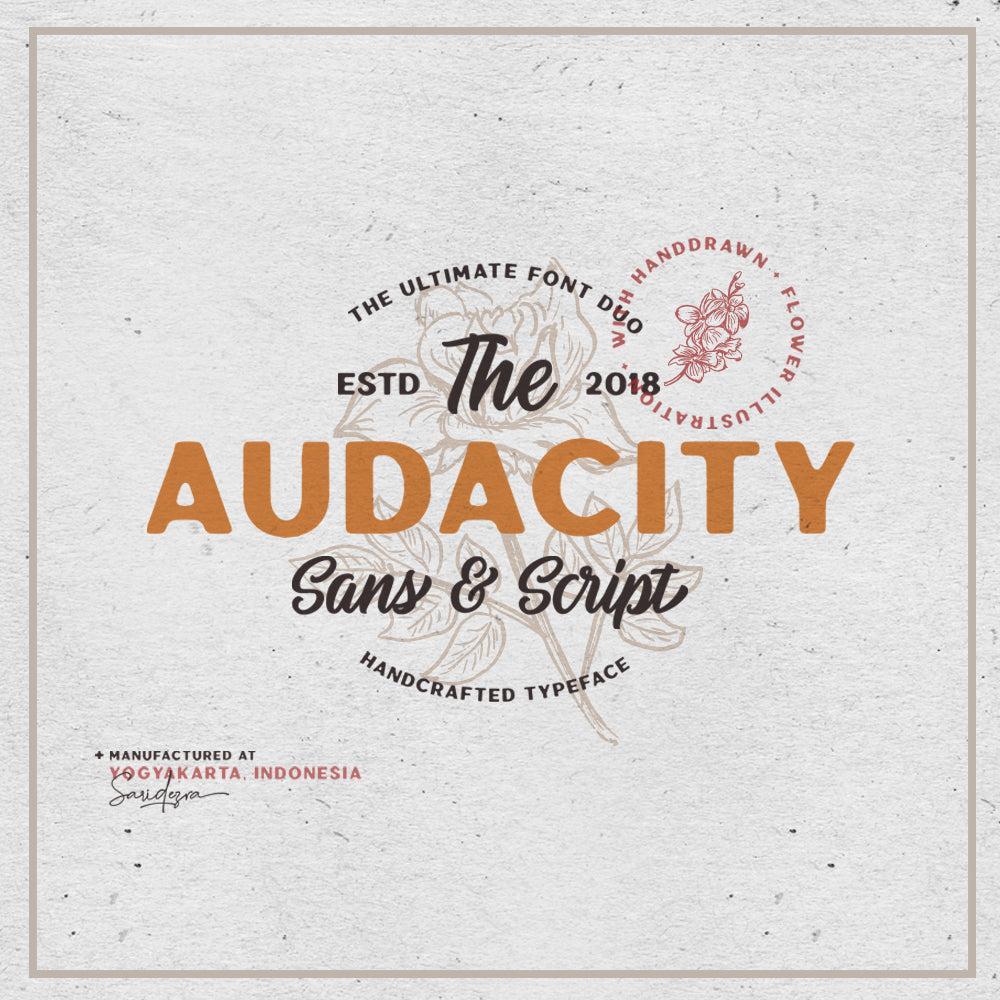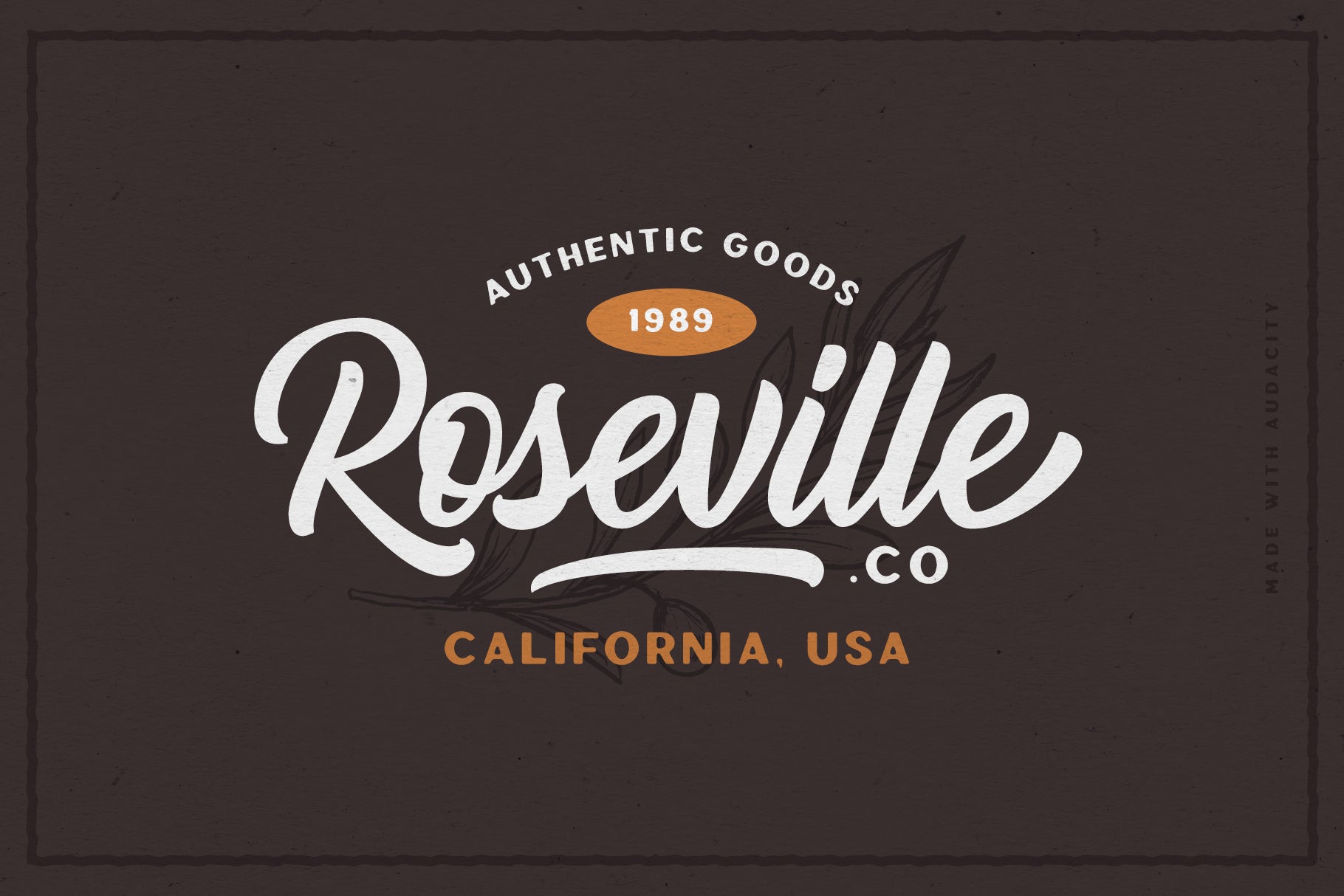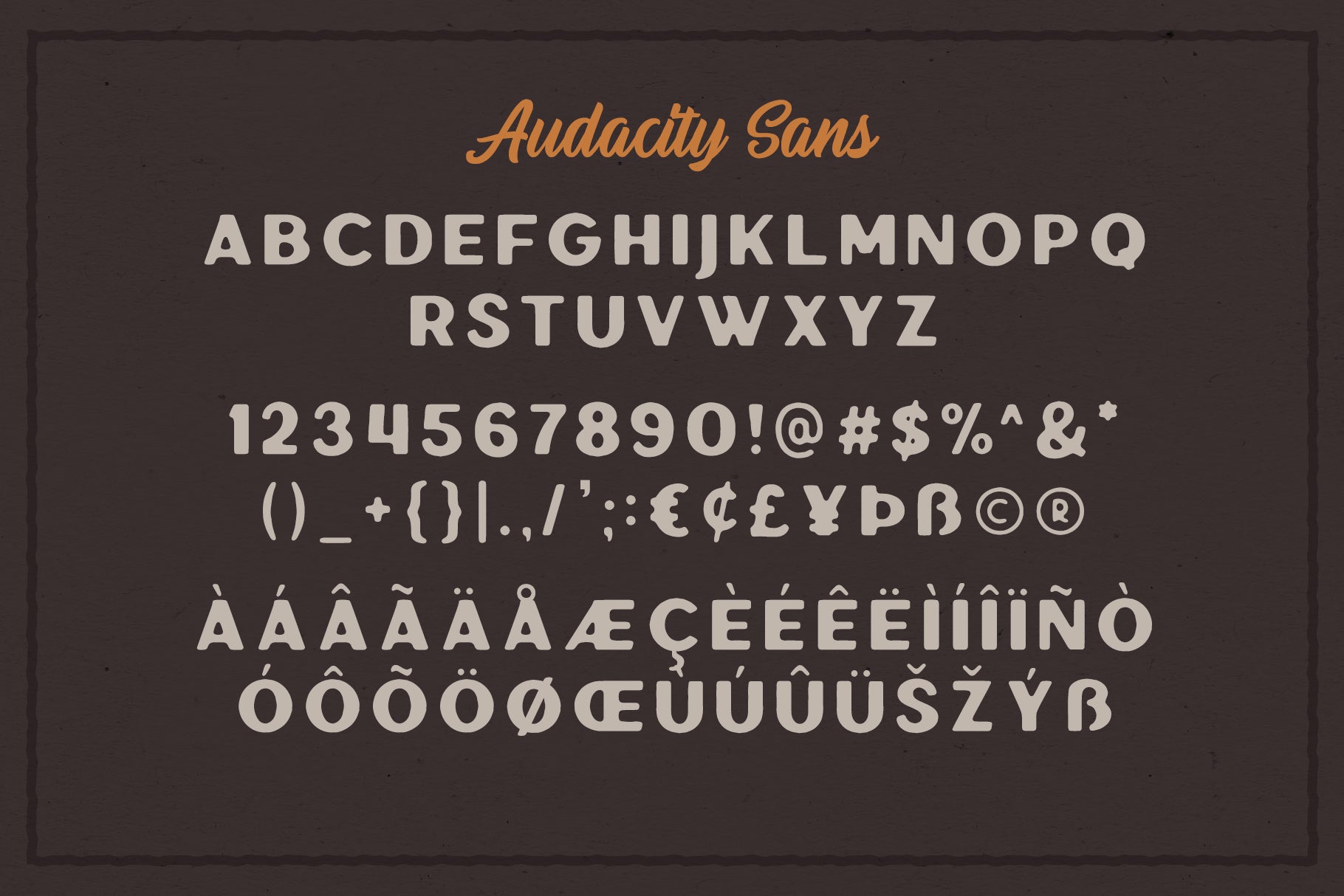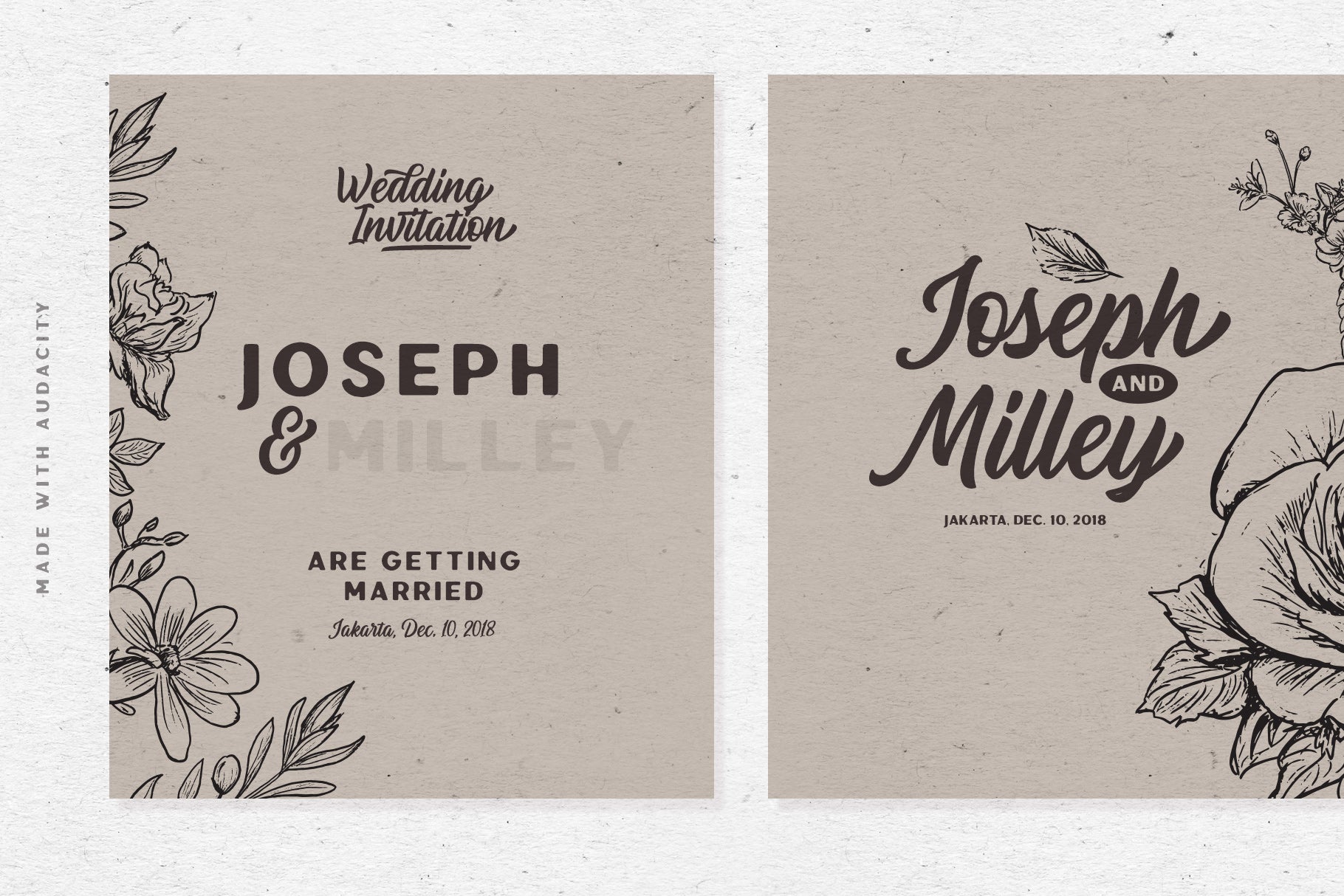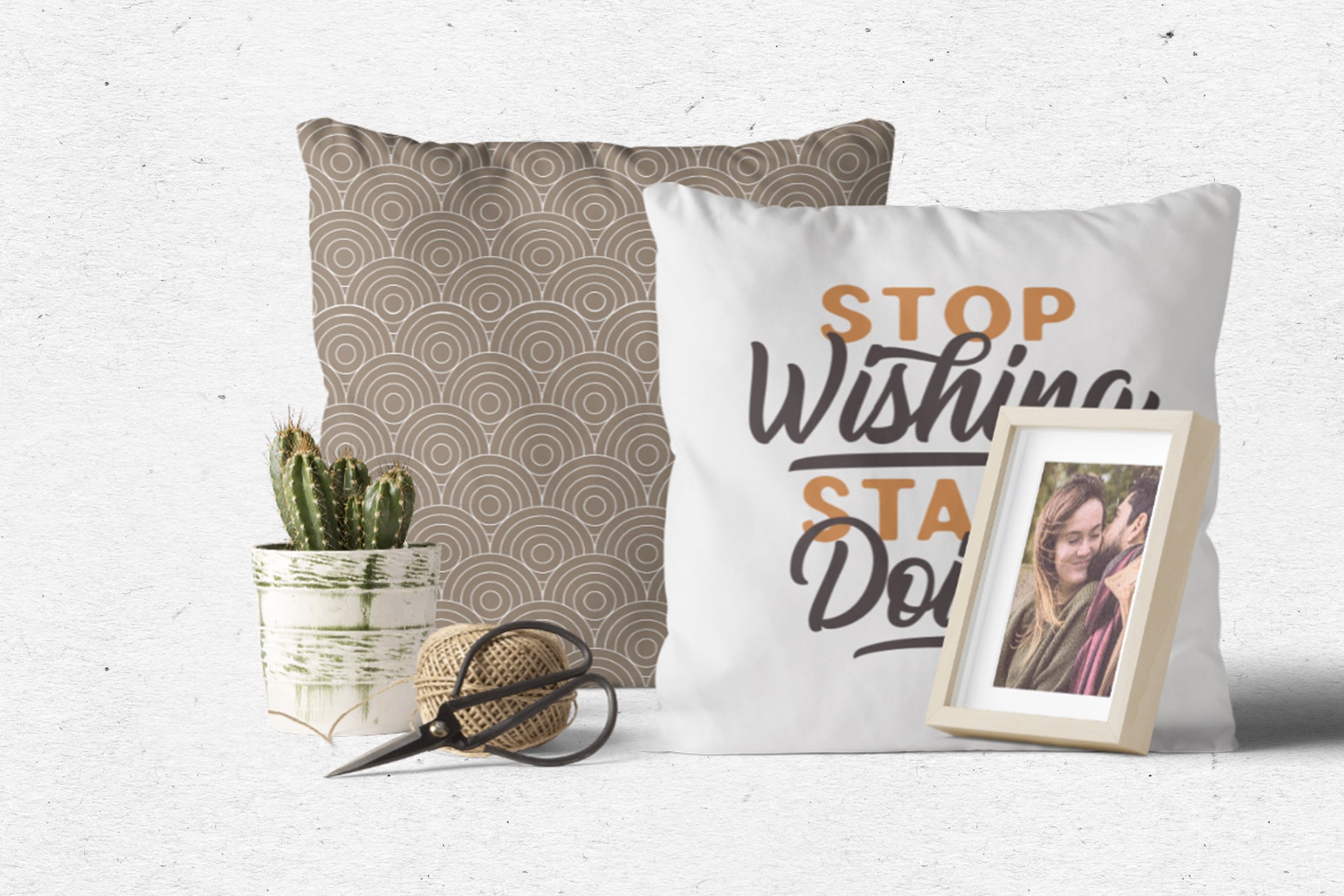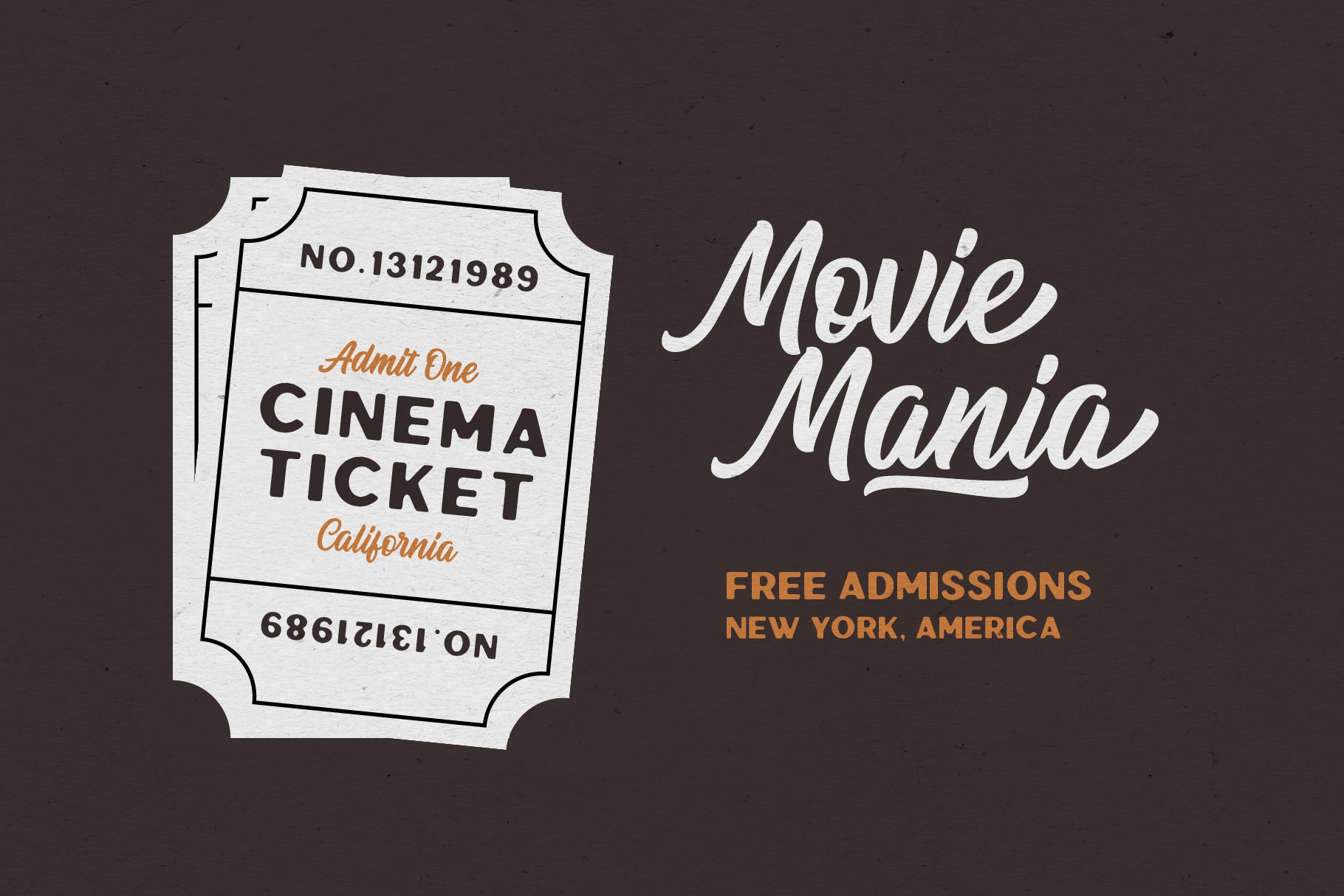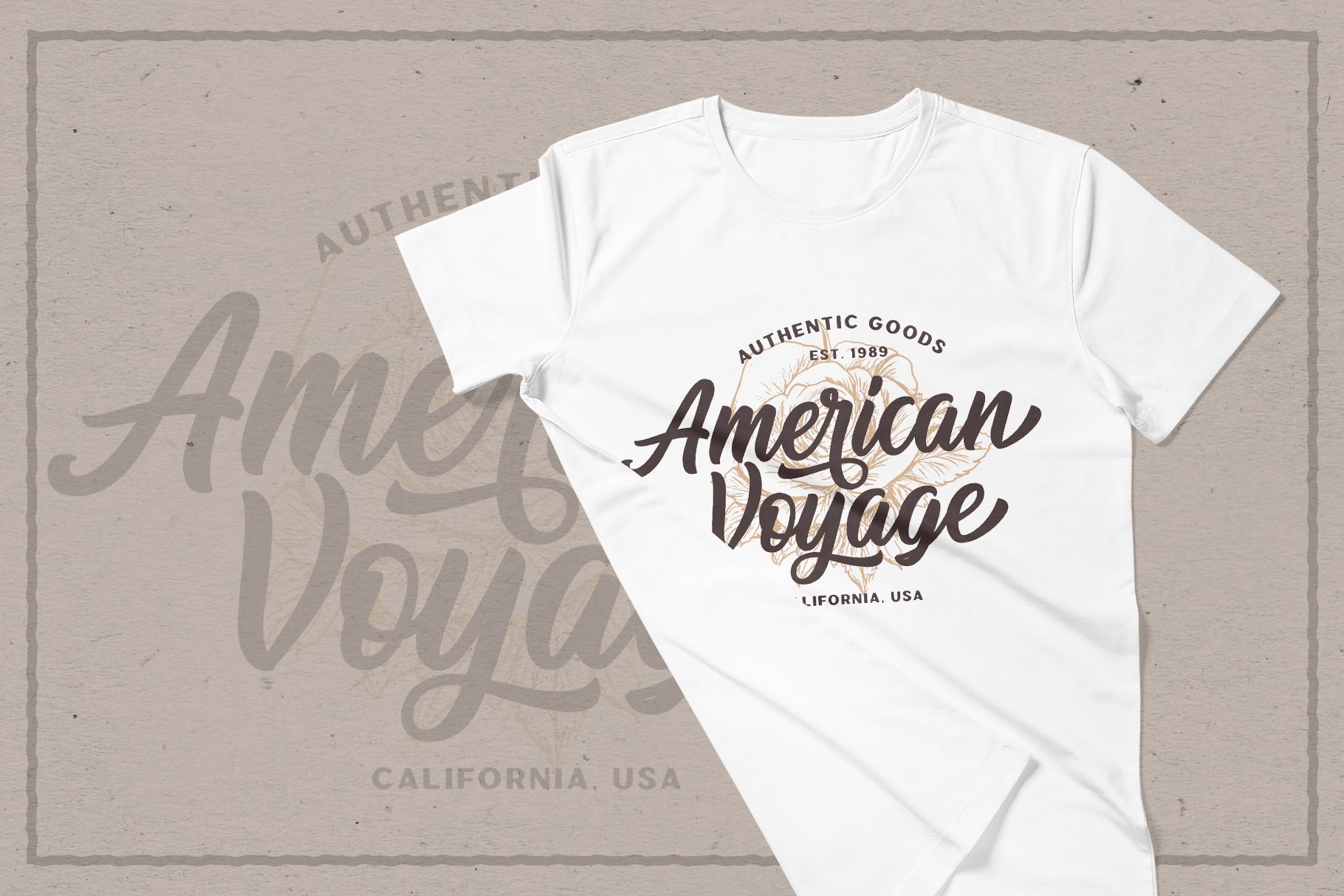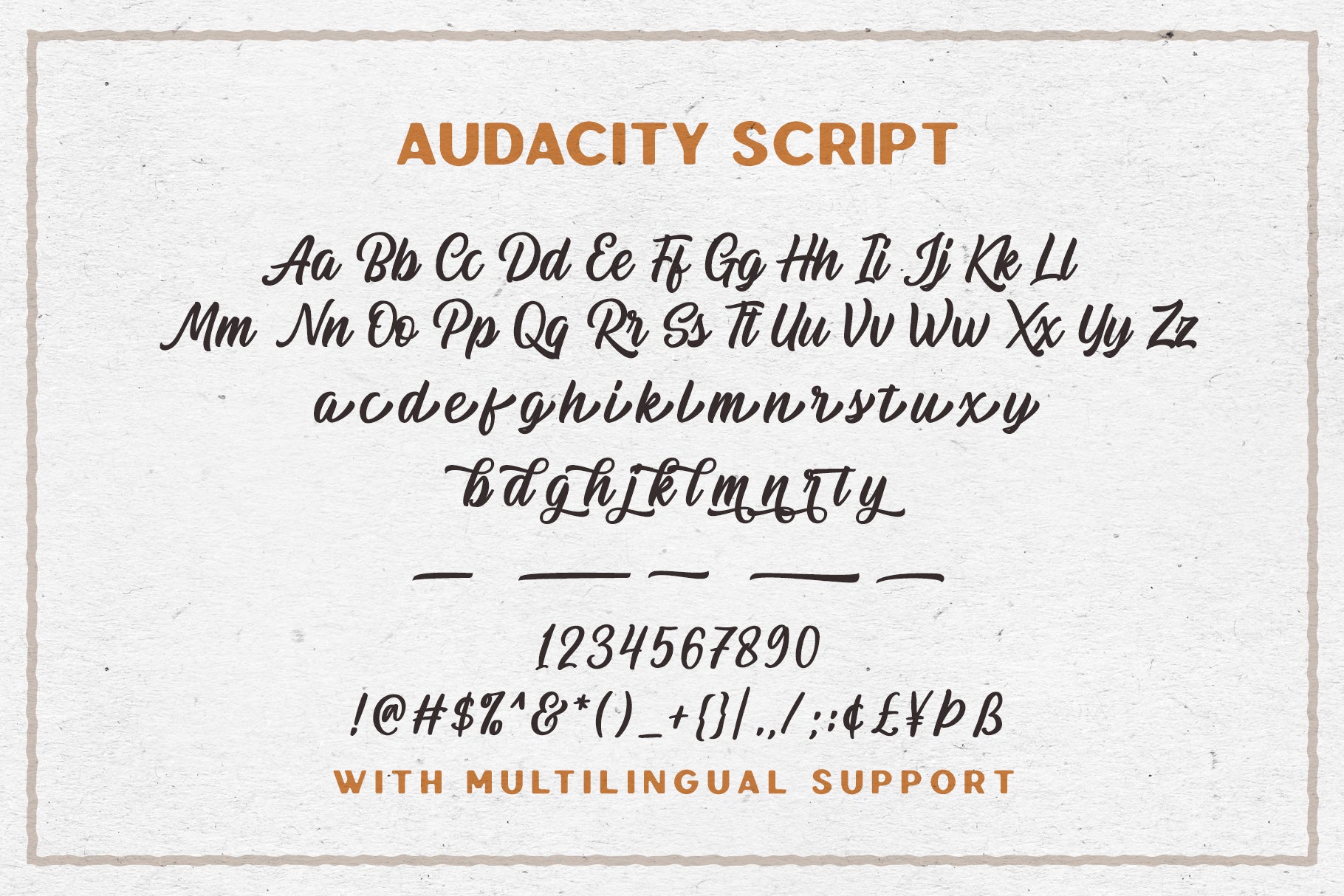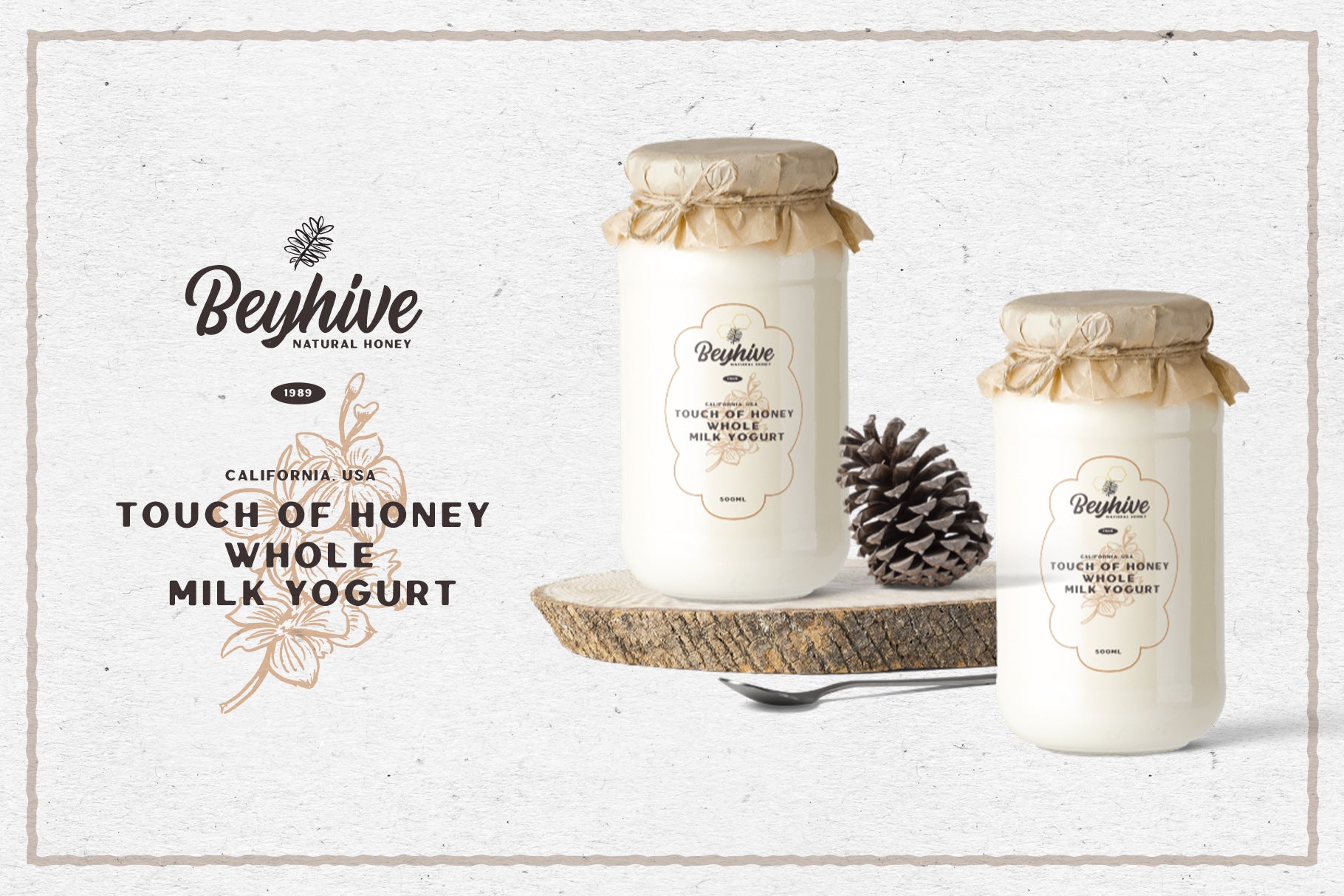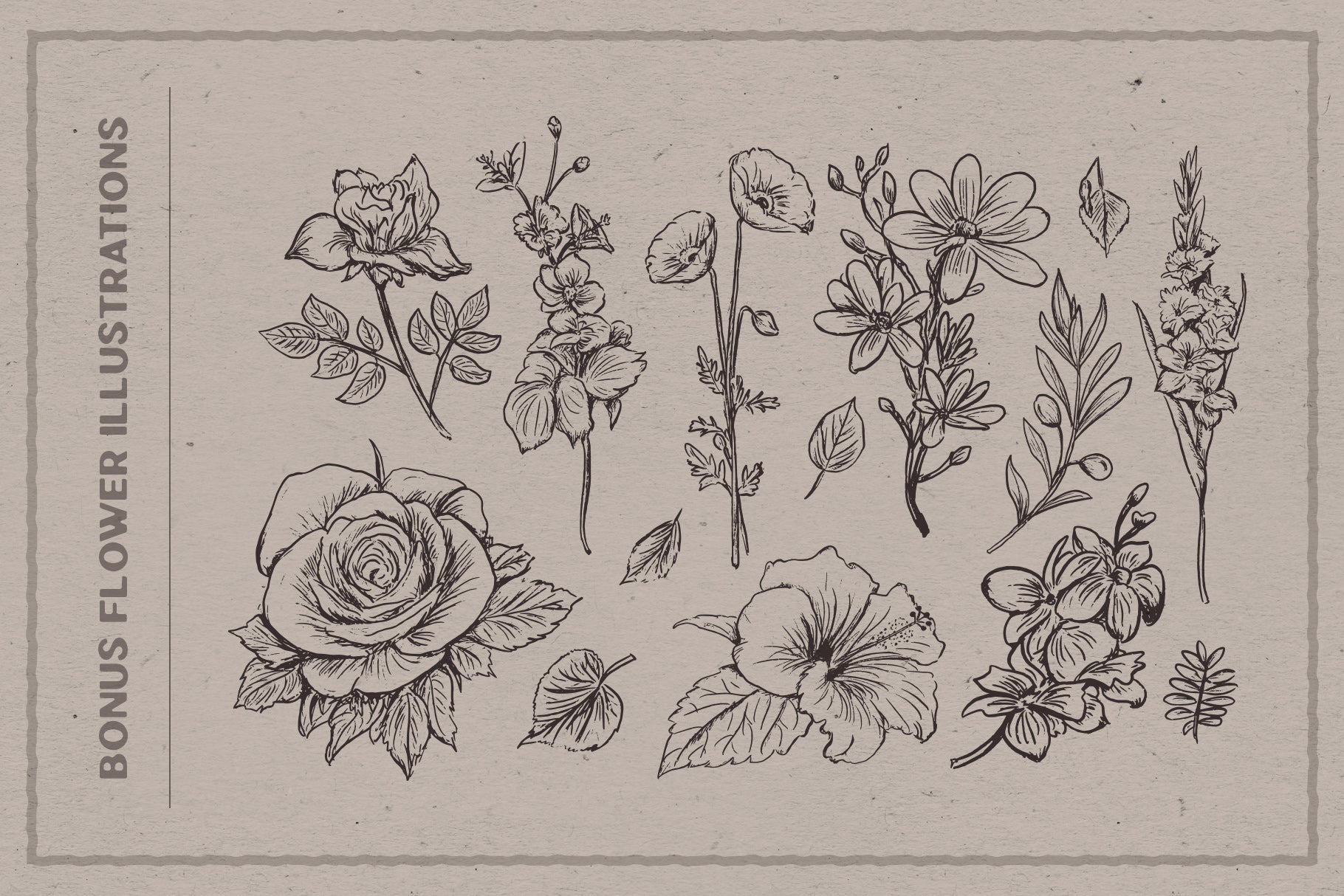
Audacity - Font Duo (+EXTRAS)
Audacity - Font Duo includes two fonts: a rough sans and a free hand lettering script. This font duo supports multilingual characters, numbers, symbols, alternates, swashes, and underlines, and comes with free flower illustrations for vintage designs, all while being PUA Encoded.